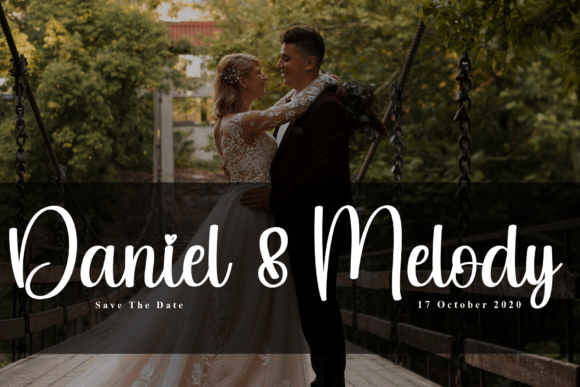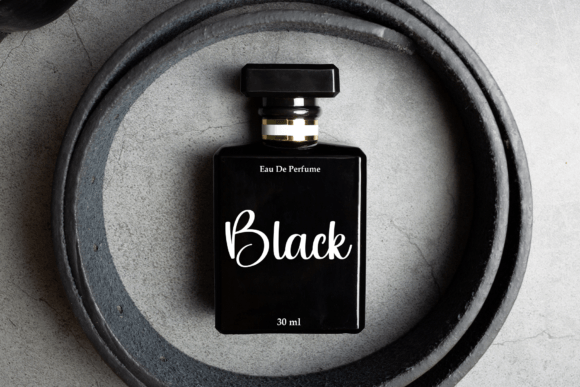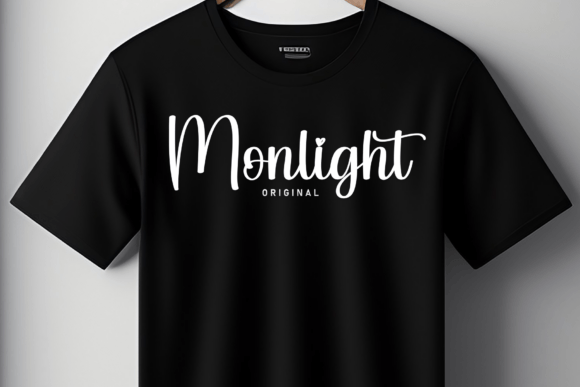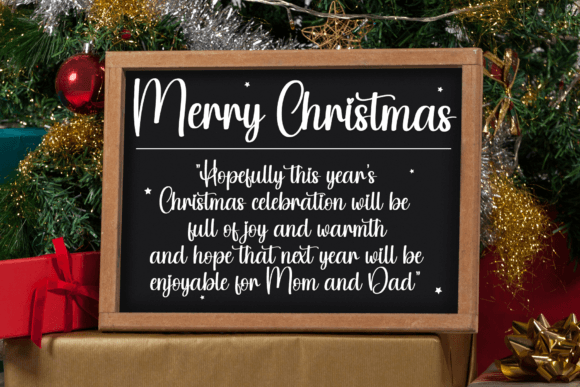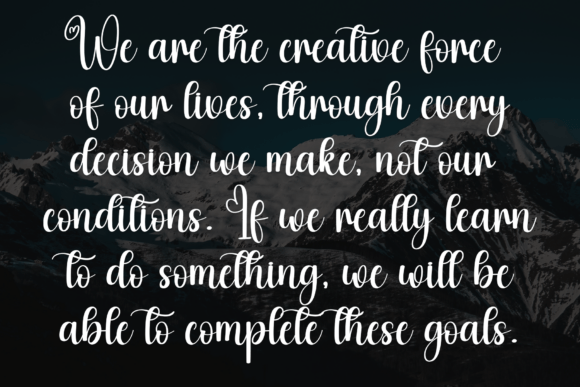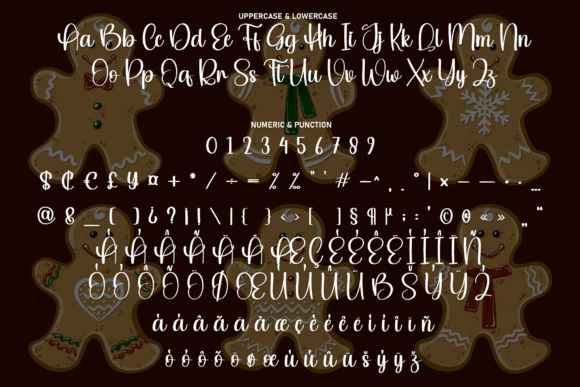
A Delicious Twist on Typography
As a designer, have you ever found yourself pouring over a blank canvas, searching for the perfect font to bring your creative vision to life? The right font can make all the difference, transporting your audience to a world of warmth and personality. For me, it’s the moment when a font’s unique character clicks into place, and I know I’ve found the perfect match.
Enter the delightful Gingerbread Font, a script handwritten font that exudes elegance and charm. With its smooth, flowing style and connected letters, Gingerbread Font is the perfect addition to any design, imbuing it with a personal and casual feel. Whether you’re crafting a wedding invitation, a children’s book, or a social media post, Gingerbread Font is sure to add a touch of warmth and creativity to your work.
As a valuable asset in any designer’s toolkit, Gingerbread Font offers a level of expressiveness and flair that’s hard to find elsewhere. Its versatility and unique charm make it a standout choice for designers looking to add a personal touch to their designs.
Gingerbread Font Key Features
- Font Family: Gingerbread is a display font, designed for use in digital applications and print materials.
- Size: The font includes a range of weights, from Thin (100) to Extra Bold (800), allowing for flexibility in design.
- Resolution: Optimized for high-resolution displays, with a minimum recommended resolution of 72 dpi for optimal readability.
- Unique Characteristics: Gingerbread features a unique, hand-drawn design with a mix of serif and sans-serif elements, creating a playful yet elegant feel.
Gingerbread Font Review
Gingerbread Font is a delightful, playful font that’s perfect for holiday-themed designs. ✨ I love how it captures the whimsical feel of gingerbread cookies and the festive atmosphere of Christmas.
- Unique Character: The font’s quirky design and eclectic feel make it stand out from more traditional fonts.
- Fun for Holidays: Gingerbread Font is ideal for holiday cards, gift tags, and other festive designs.
- Easy to Read: Despite its playful nature, the font is still legible and easy to read.
However, there are some limitations to consider: ⚠️ The font may not be suitable for all types of designs, and its playfulness might come across as childish in certain contexts.
- Limited Versatility: Gingerbread Font might not be the best choice for corporate or formal designs.
- Not Ideal for Long Text: The font’s playful feel might become overwhelming when used for large blocks of text.
Overall, I think Gingerbread Font is a great addition to any designer’s toolkit, especially during the holiday season. While it may have some limitations, its unique character and fun feel make it a great choice for the right project.
Tip: Use the Gingerbread Font in combination with festive colors and graphics to create a fun and playful design.
Tip: Use the Gingerbread Font in conjunction with layered designs and textures to create a visually appealing and festive design.
Tip: Use the Gingerbread Font in combination with festive backgrounds and graphics to create a fun and engaging presentation or document.
The Gingerbread Font is ideal for:
- Christmas and holiday-themed designs.
- Food and baking-related designs.
- Children’s party invitations and decorations.
- Seasonal greeting cards and gift tags.